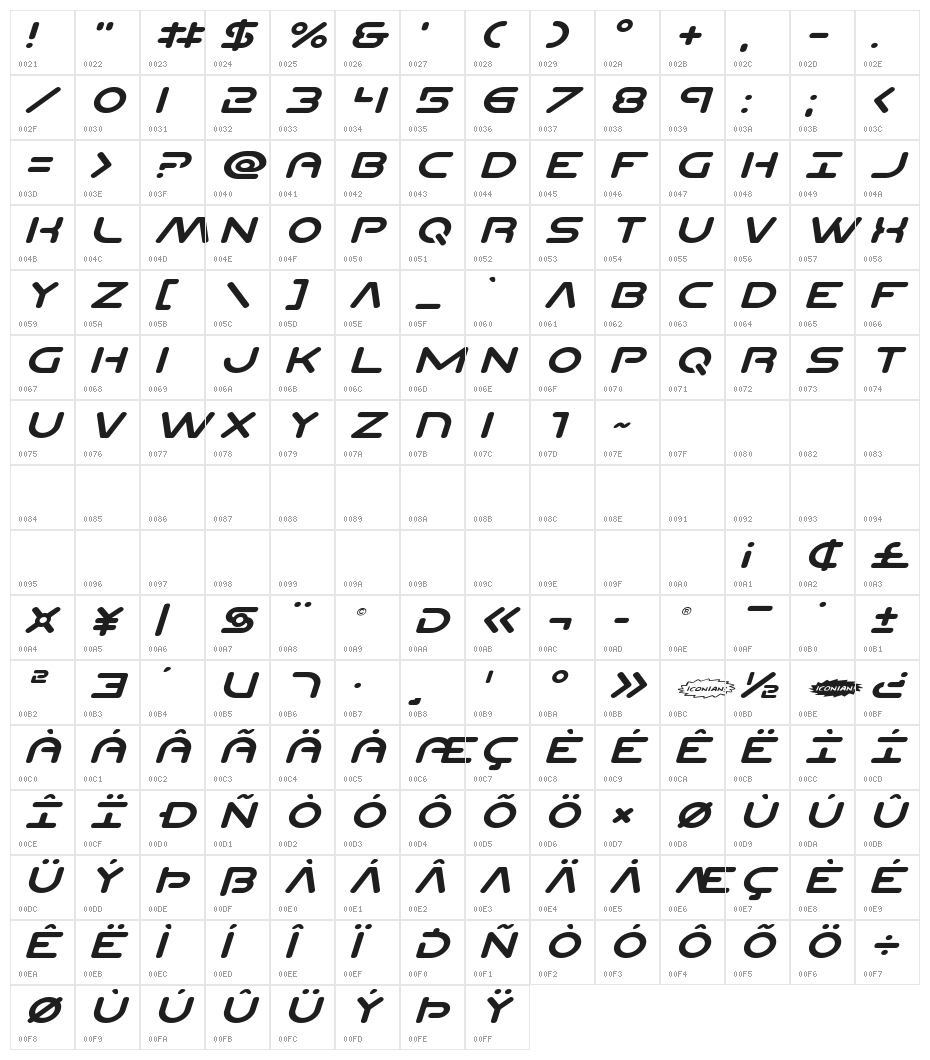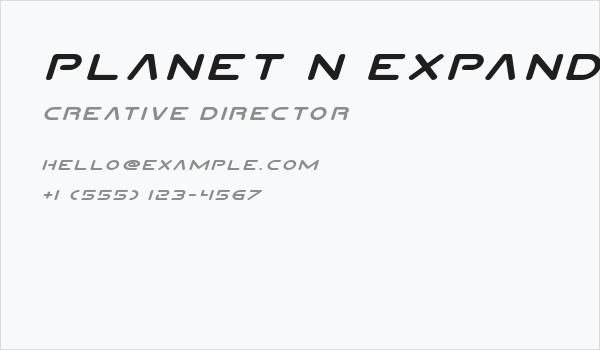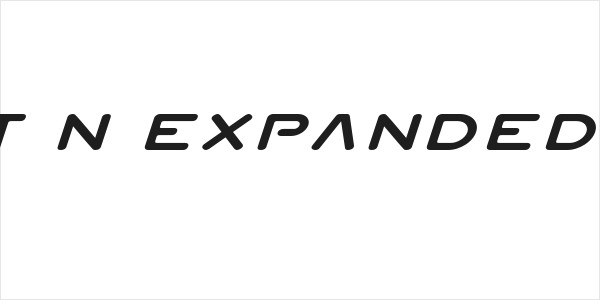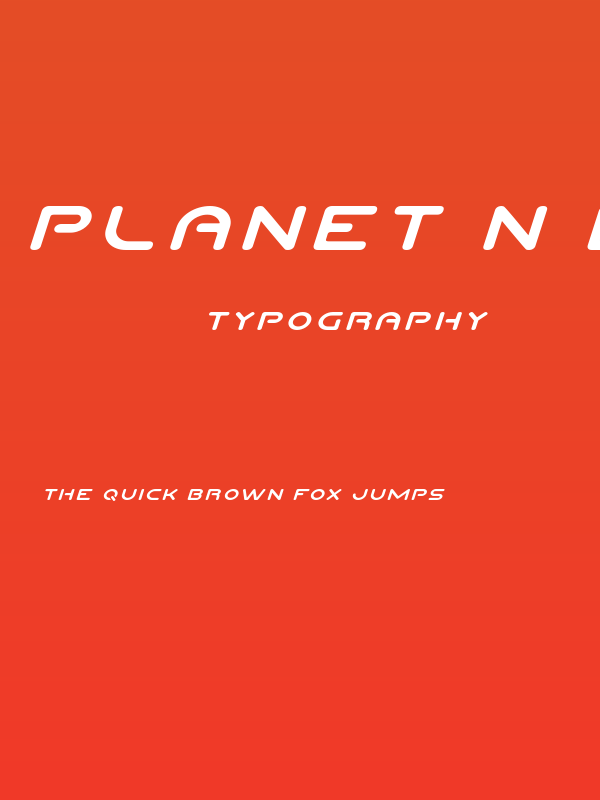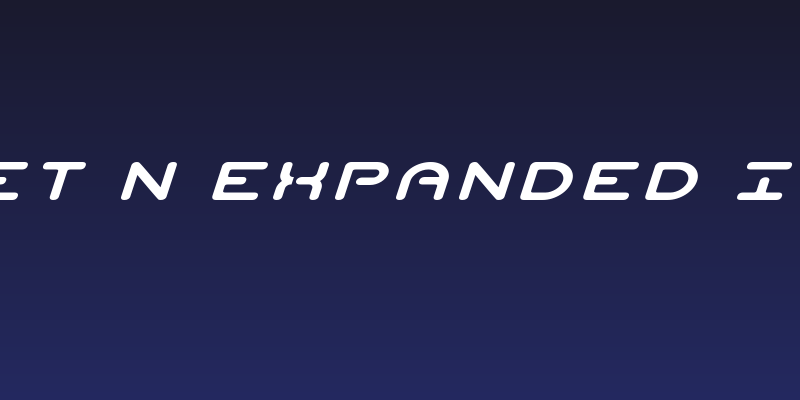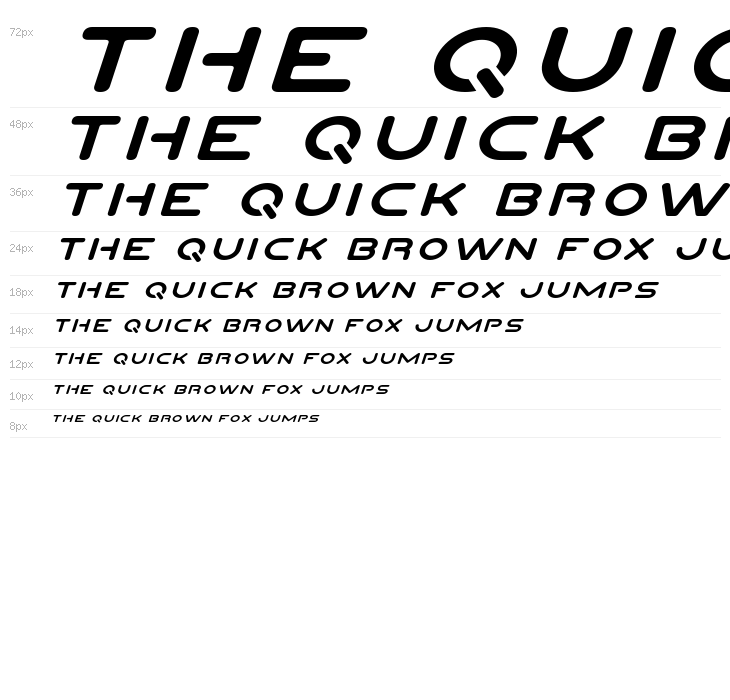
Planet N Expanded Italic Font
Planet N Expanded Italic Description
This font features a futuristic and sleek design with a distinctly italicized style, giving it a sense of motion and dynamism. The characters are expanded, providing a wide and airy feel, while maintaining a consistent stroke width that ensures readability. The rounded edges and smooth curves contribute to its modern aesthetic, making it suitable for contemporary design projects. The numerals and special characters are designed to match the overall style, ensuring uniformity across all text elements.
Proposed ProjectsIdeal for technology branding, sci-fi themed projects, modern advertising, and innovative product packaging.